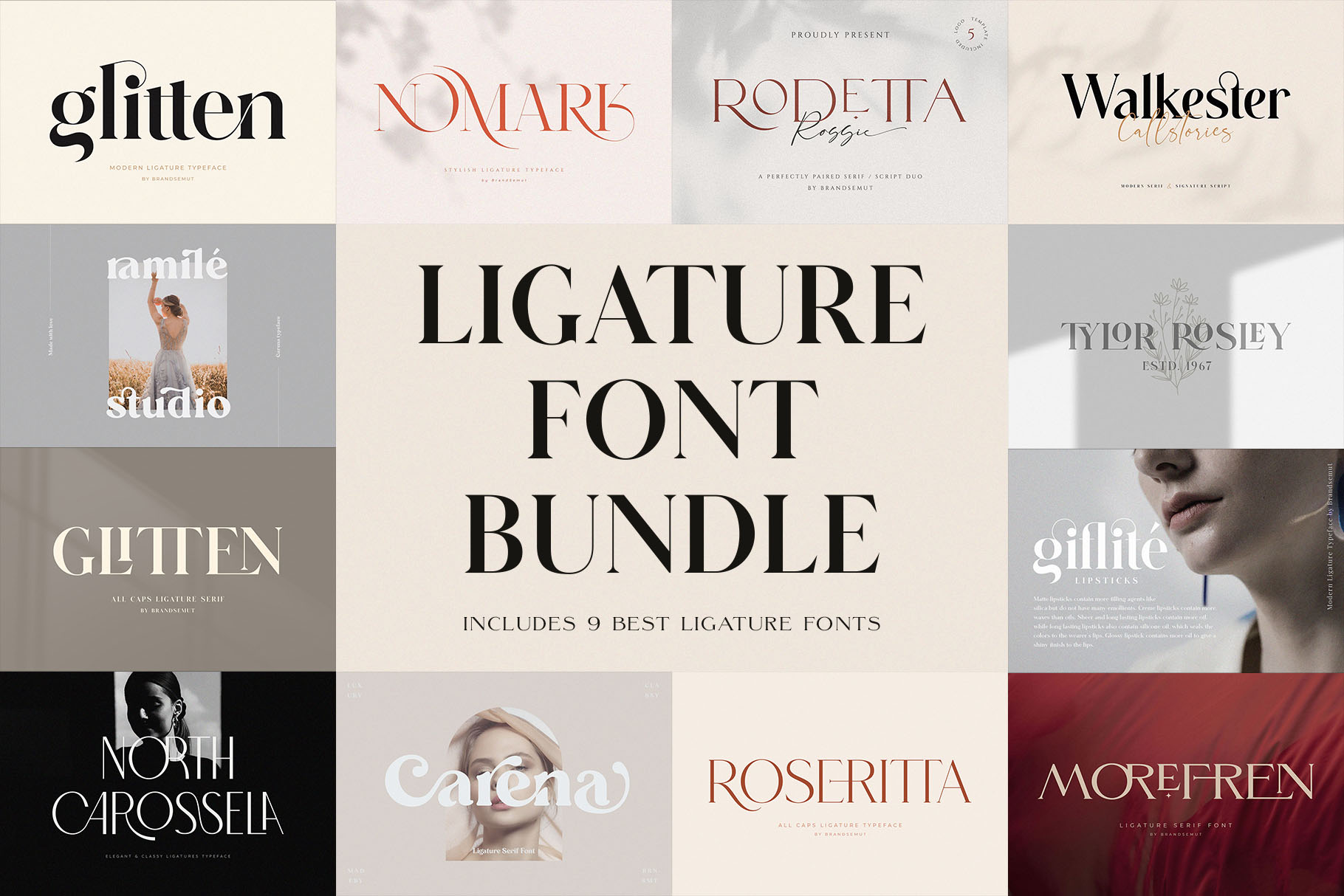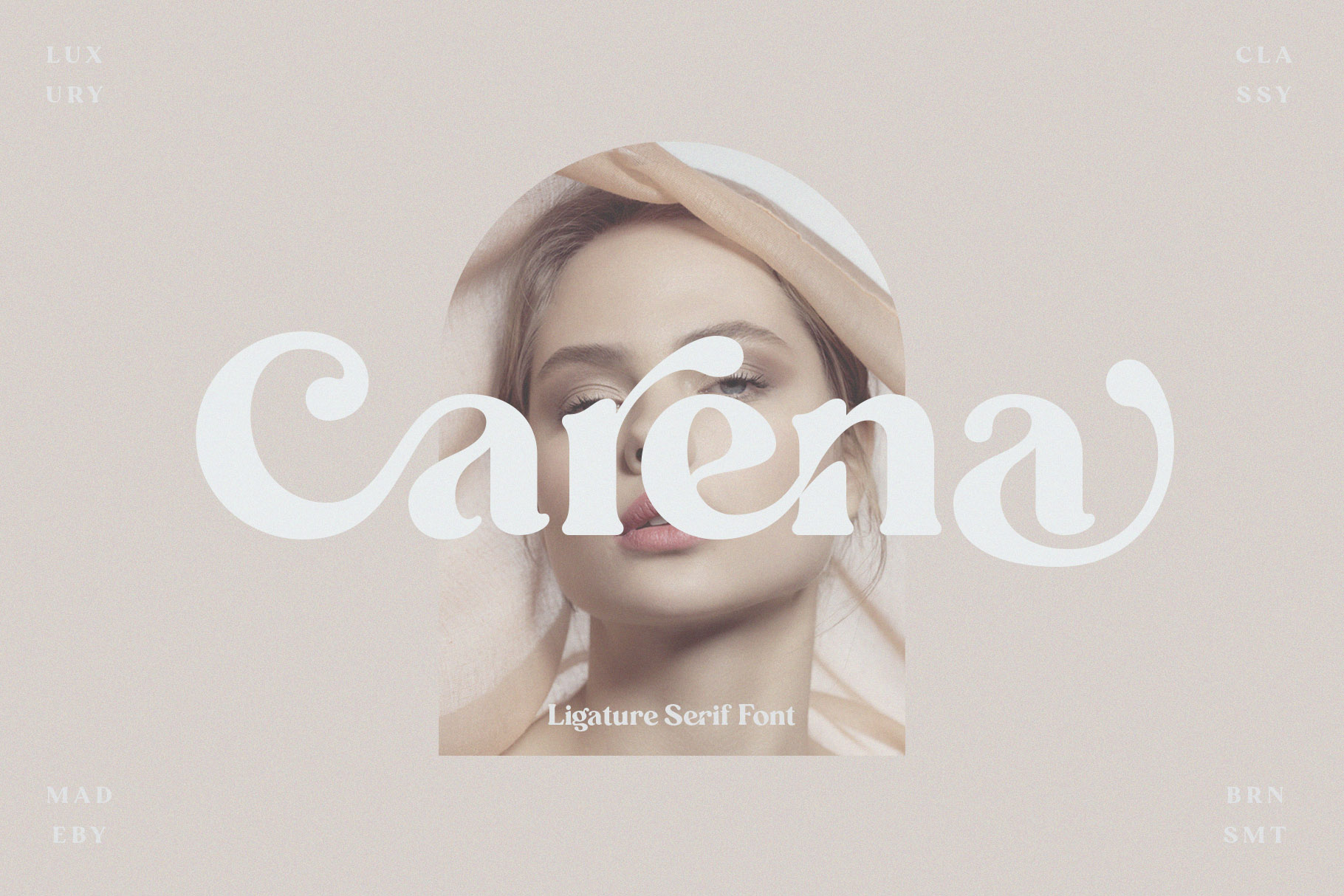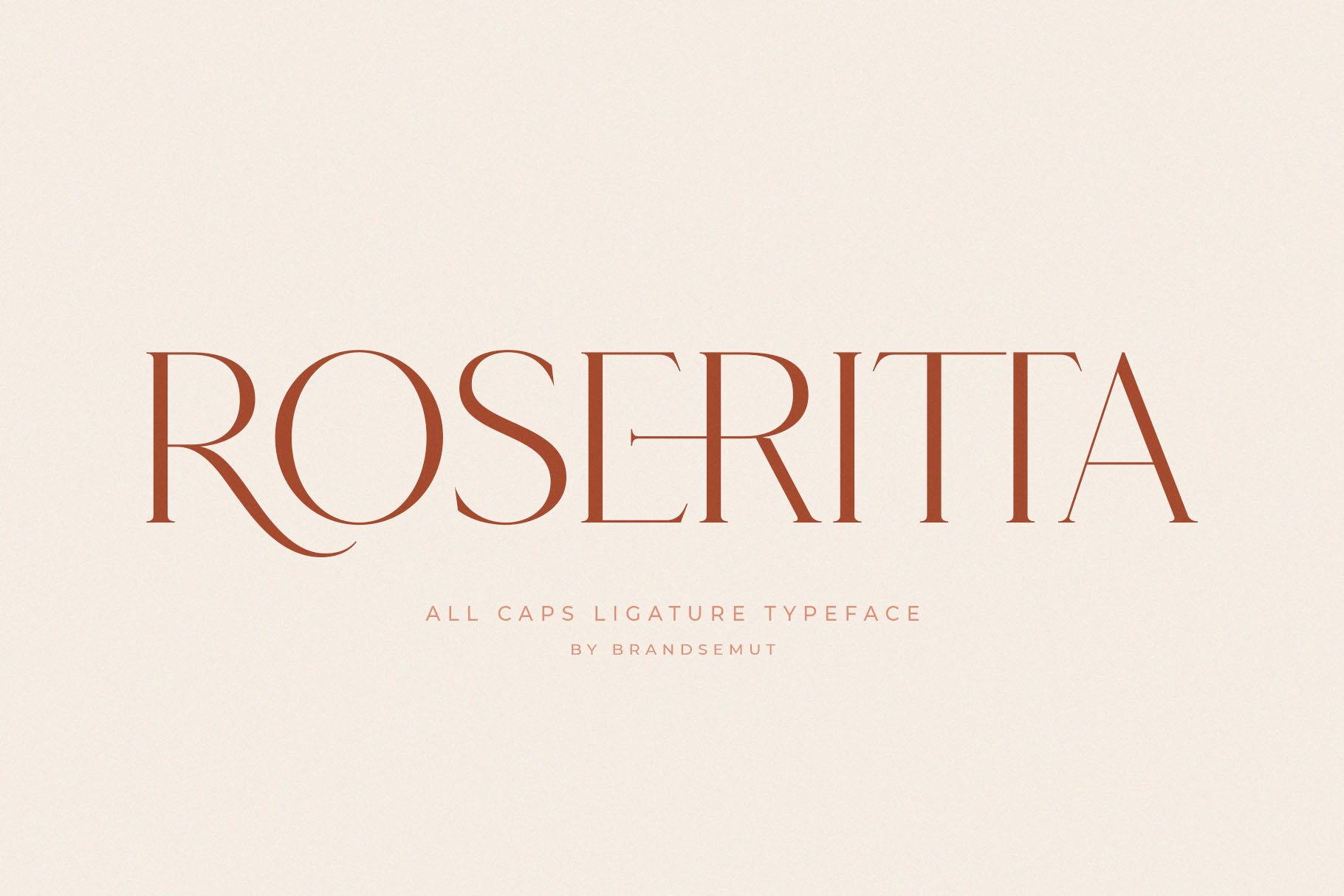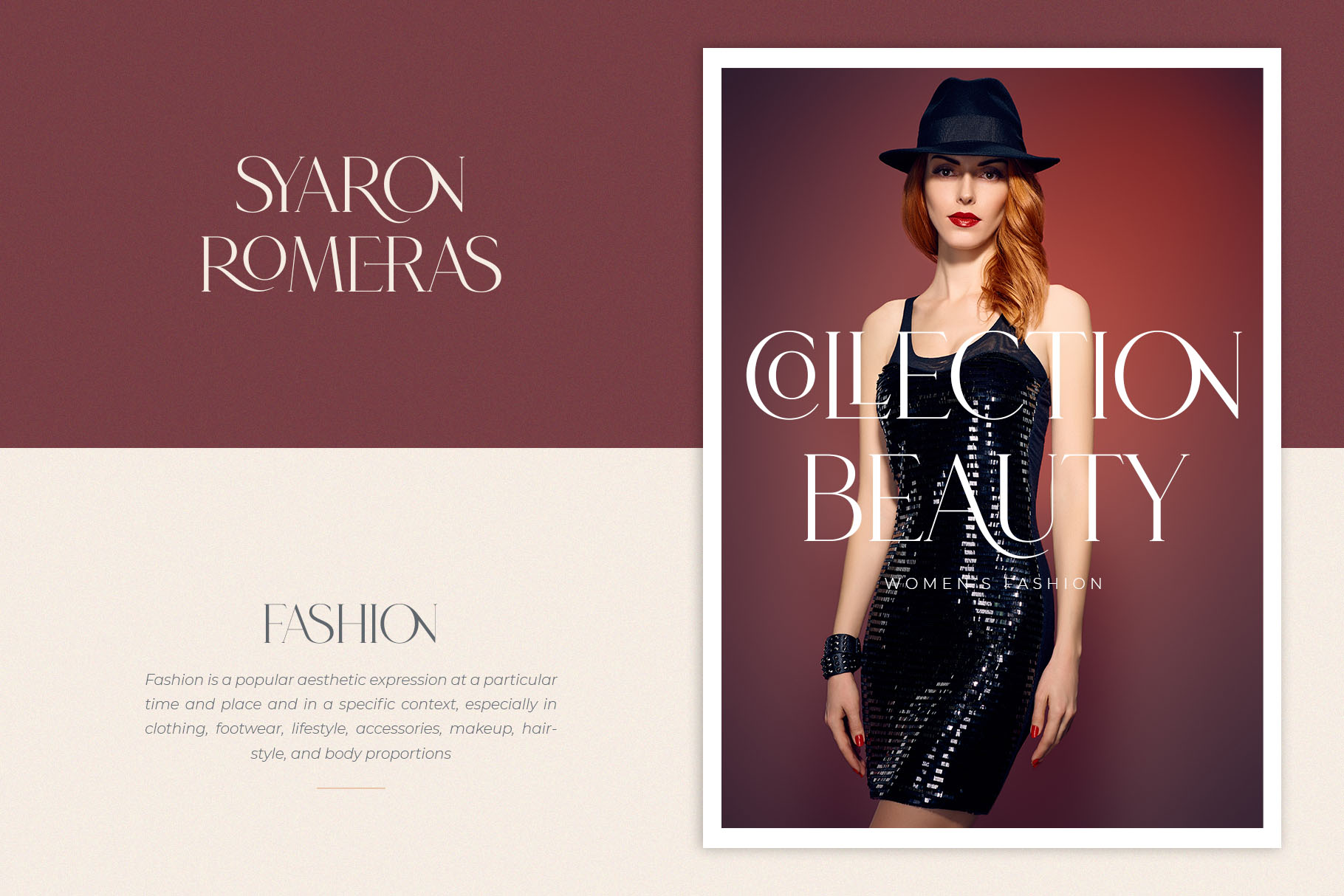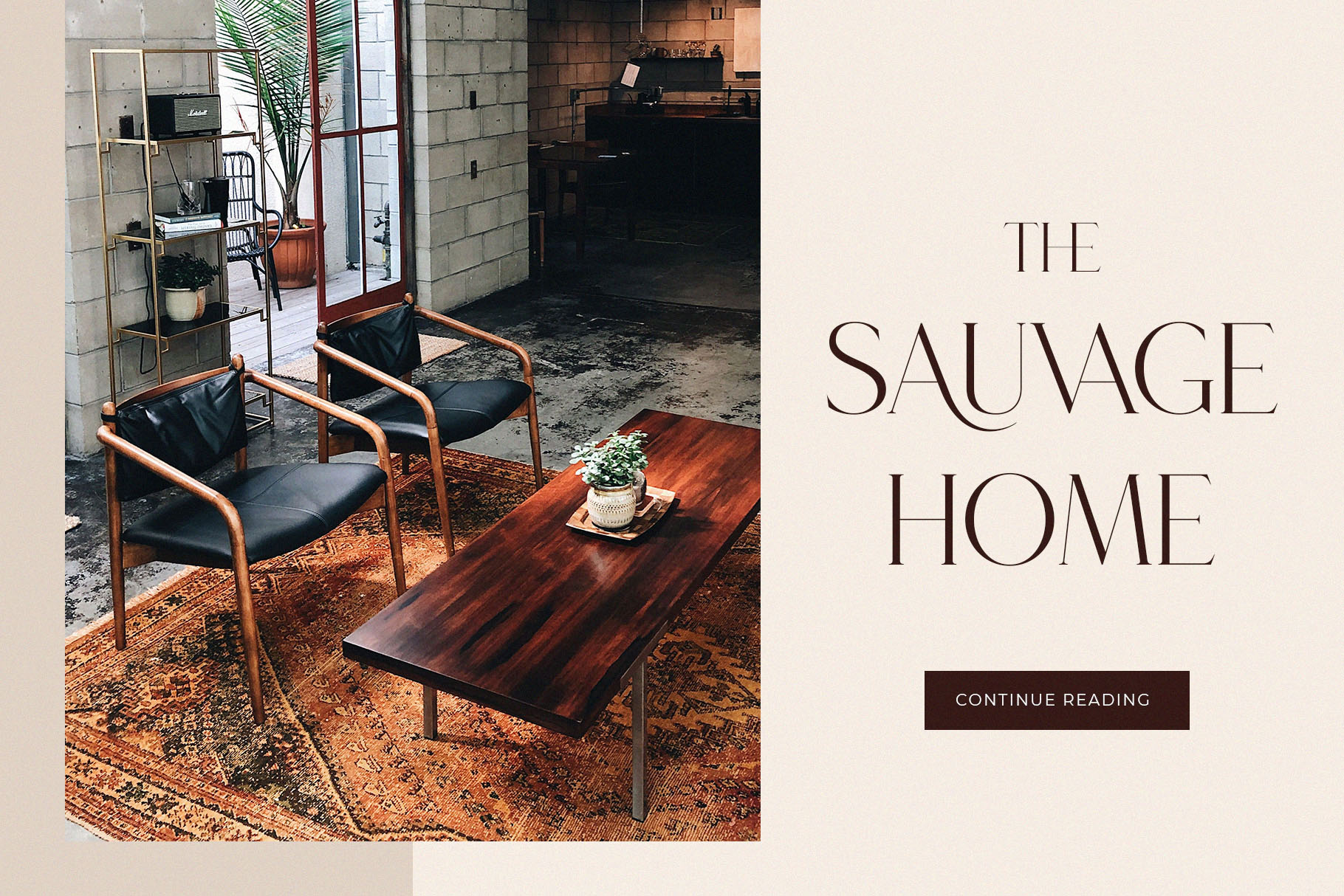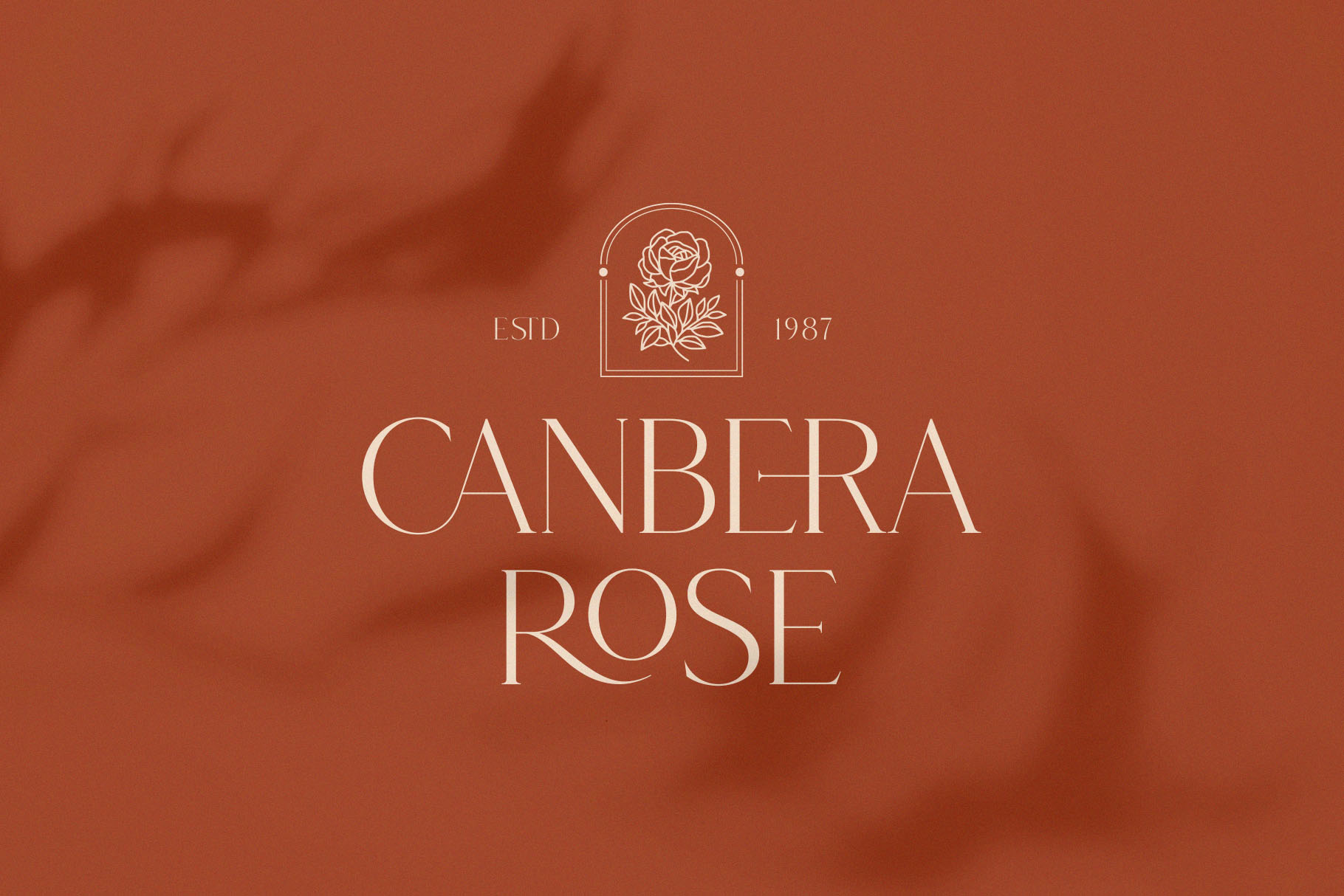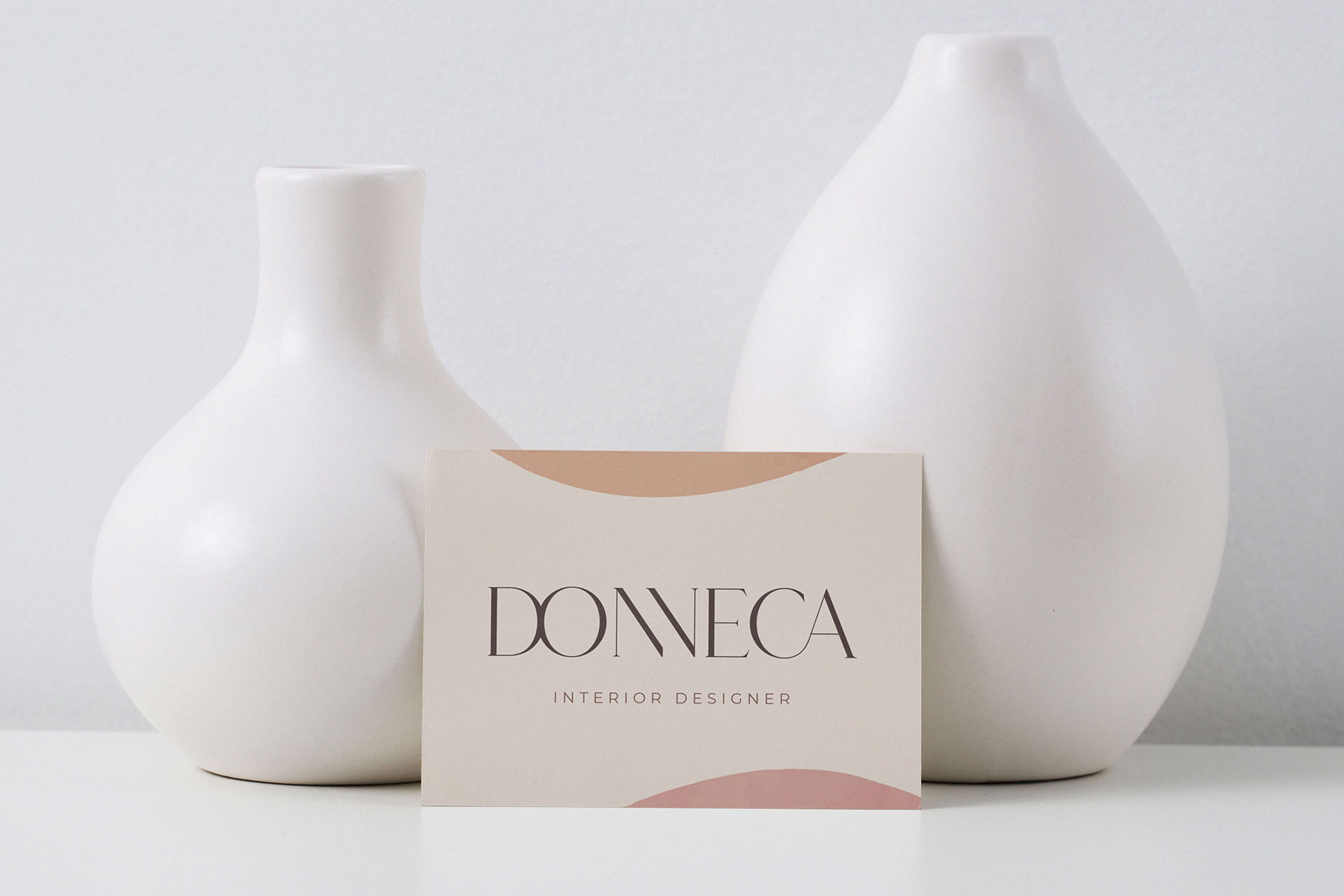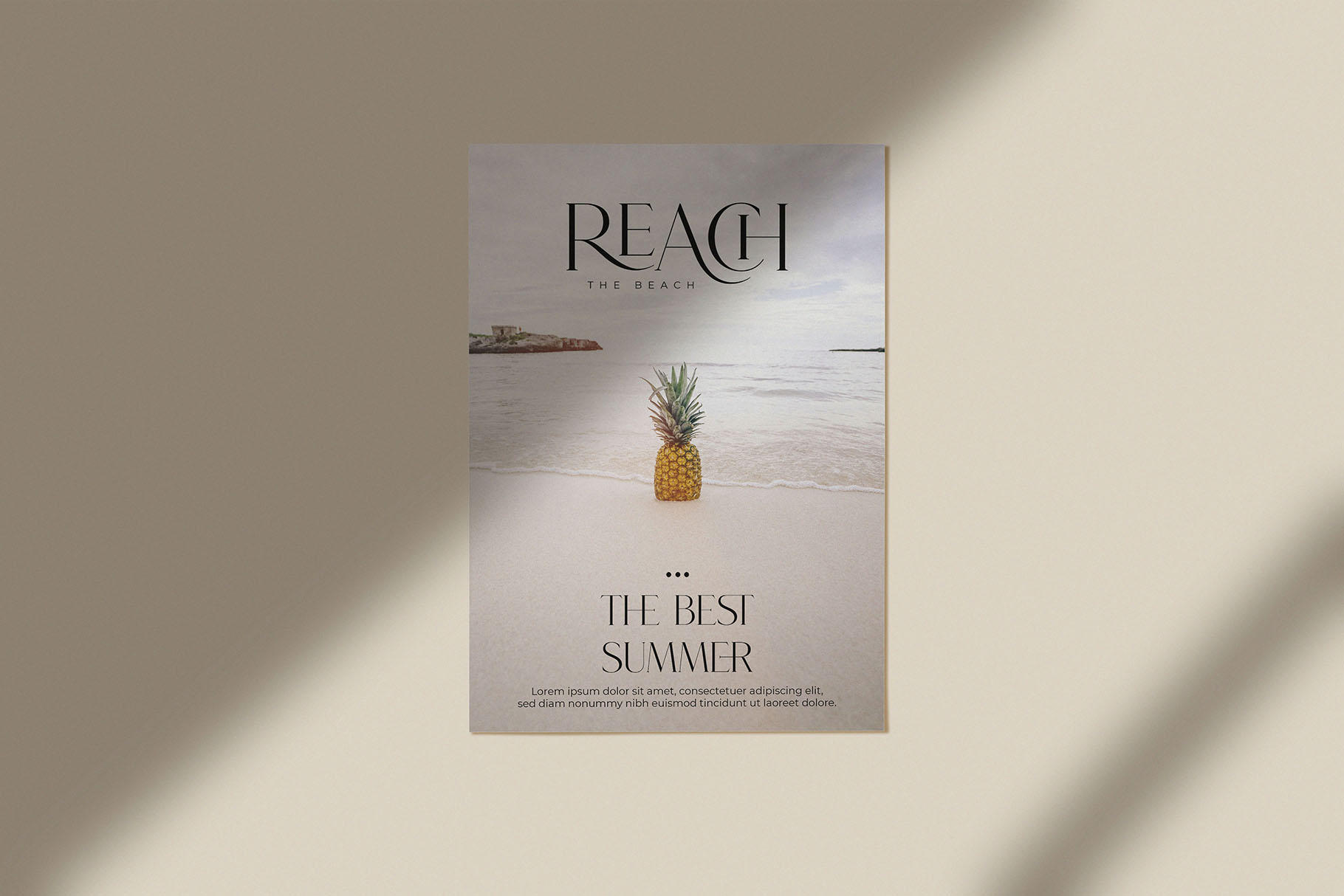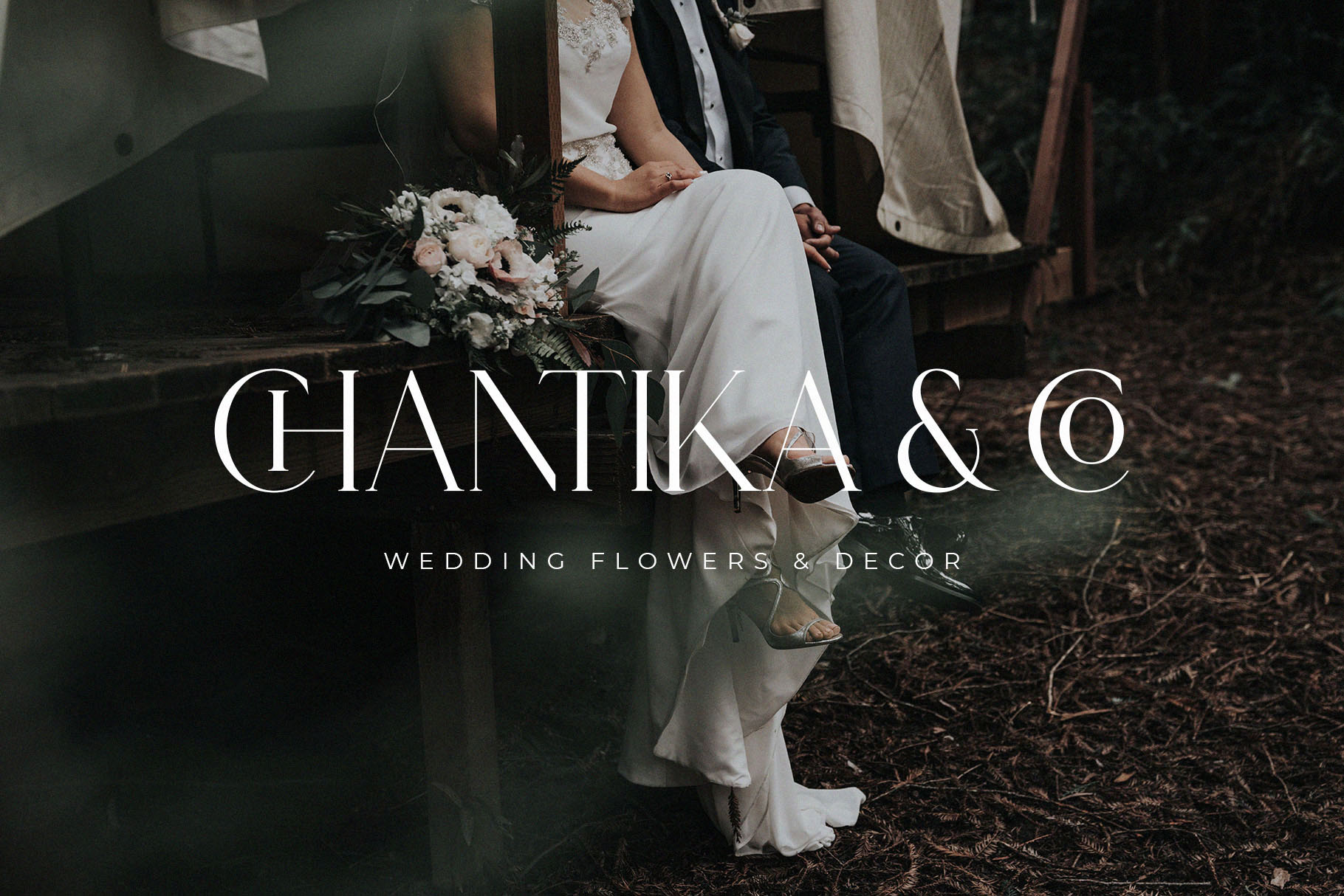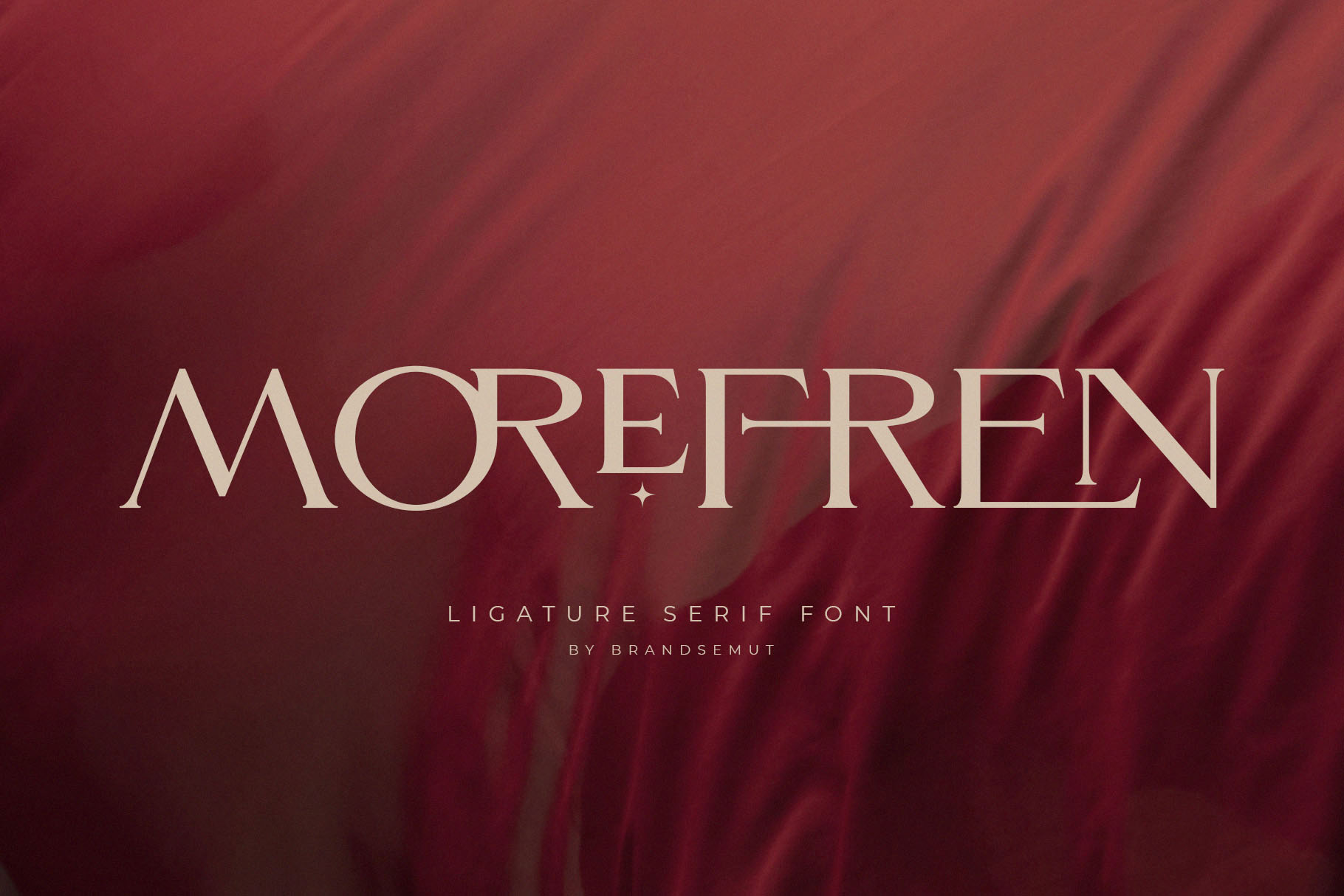
7. Ligature Font BUNDLE
Ligature Font BUNDLE
WOW!!! NEW LIGATURE FONT BUNDLE – an incredible BUNDLE with the ligature font style and the duo font. Ligature font bundle is suitable font for many creative products & designs. Go ahead and make Branding, Logos, Blog, Social Media, Invites, Wedding, Poster, Magazine, Quotes, Packaging, Photo Overlays, Poatcard, Advertisements, Fshion and others. This bundle contain 8 items, with total 13 fonts inside.
• Roseritta – Ligature Serif
• Morefren – Serif Ligature Font
• Glitten – Ligature Serif Font
• Glitten – All Caps Ligature Serif
• Nomark – Ligature Typeface
• North Carossela – A Ligature Sans
• Walkester Font Duo
• Rodetta Rossie Font Duo + Logos